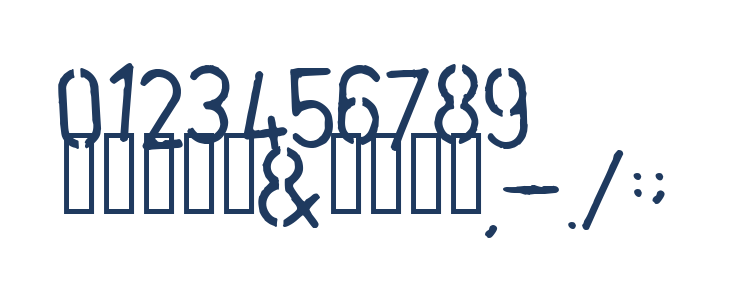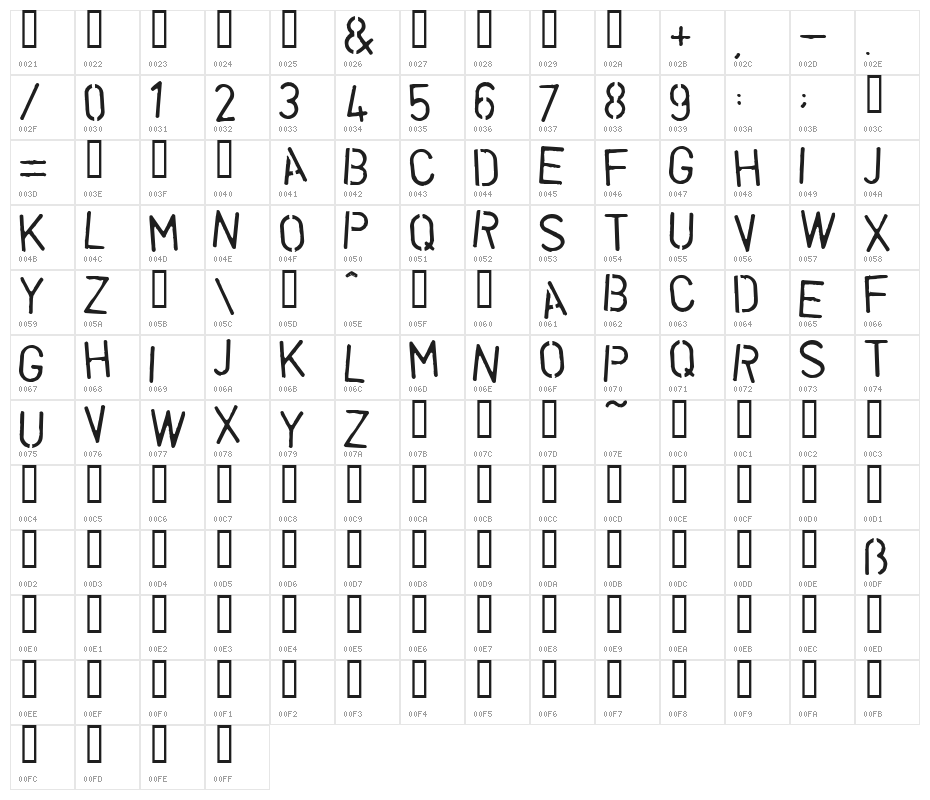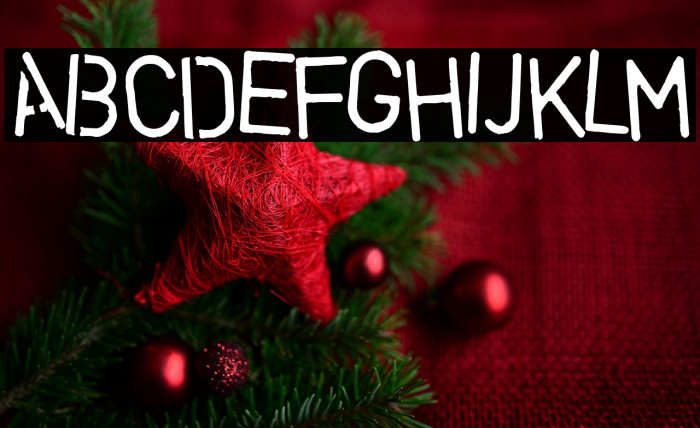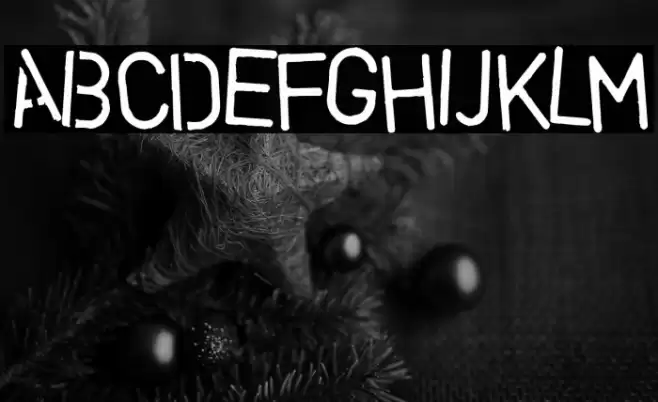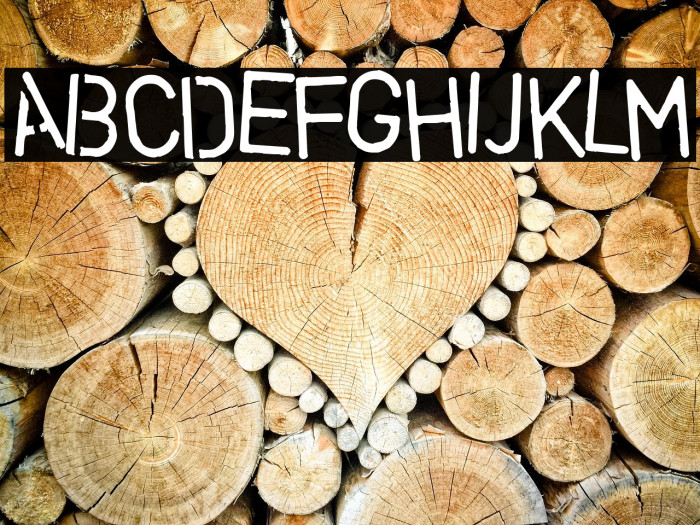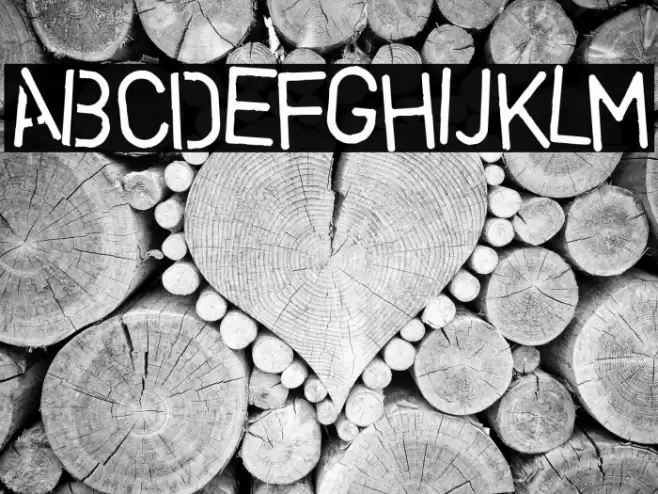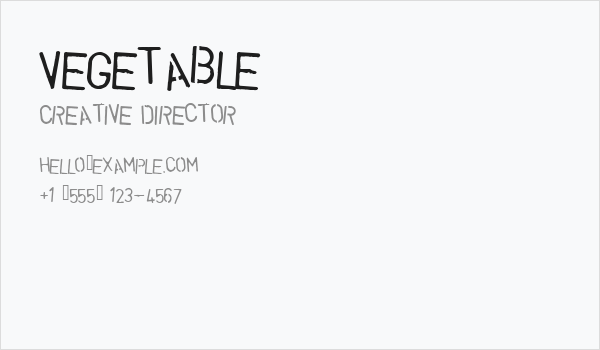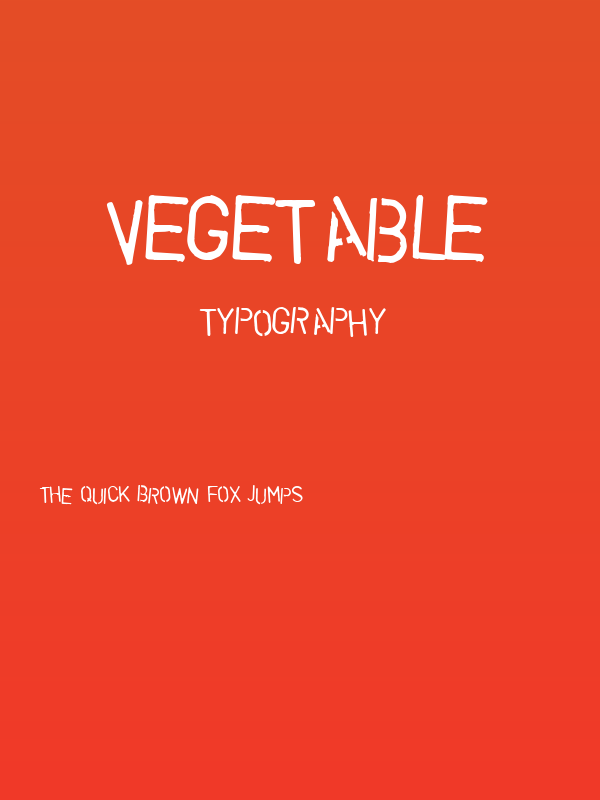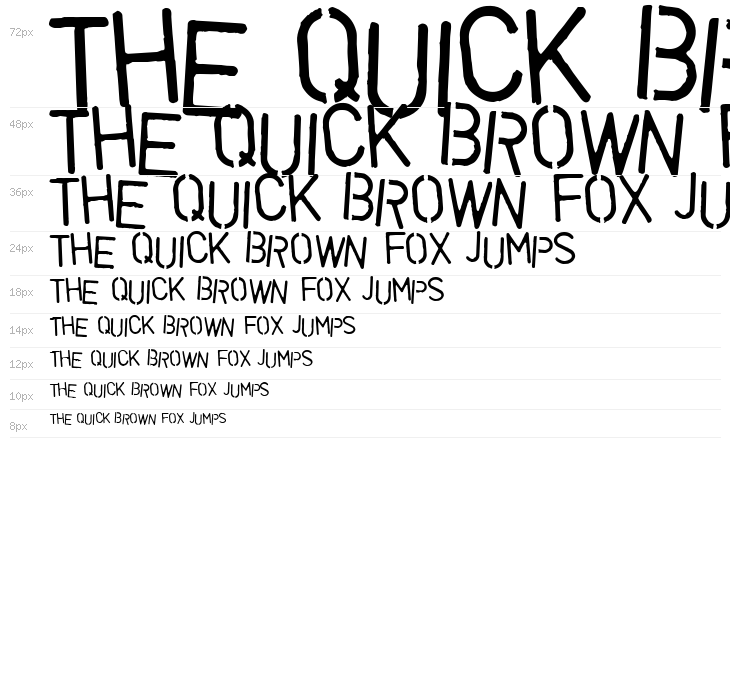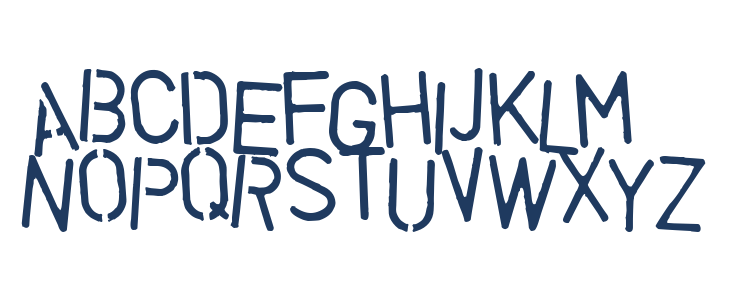
Vegetable Font
Vegetable Description
This font features a playful and casual handwritten style, characterized by its uneven strokes and slightly irregular letterforms. The uppercase and lowercase letters maintain a consistent style, with a dynamic and energetic appearance. The numbers and special characters follow the same playful design, adding a unique touch to any text. The overall look is informal and friendly, making it suitable for creative and artistic projects. The font's distinctive personality is enhanced by its hand-drawn quality, giving it a personal and approachable feel.
Overall StyleCasual
Use CaseHeadlines, Creative projects, Informal text
Proposed ProjectsIdeal for children's books, creative posters, casual invitations, and artistic branding.